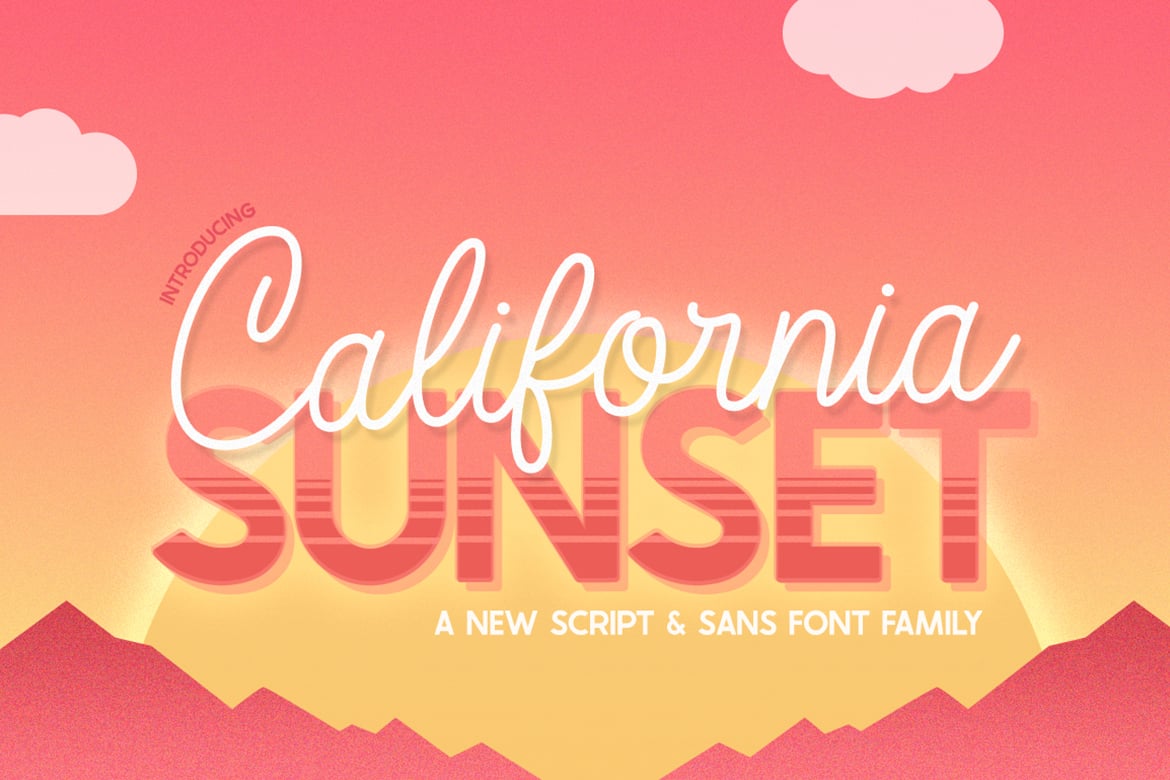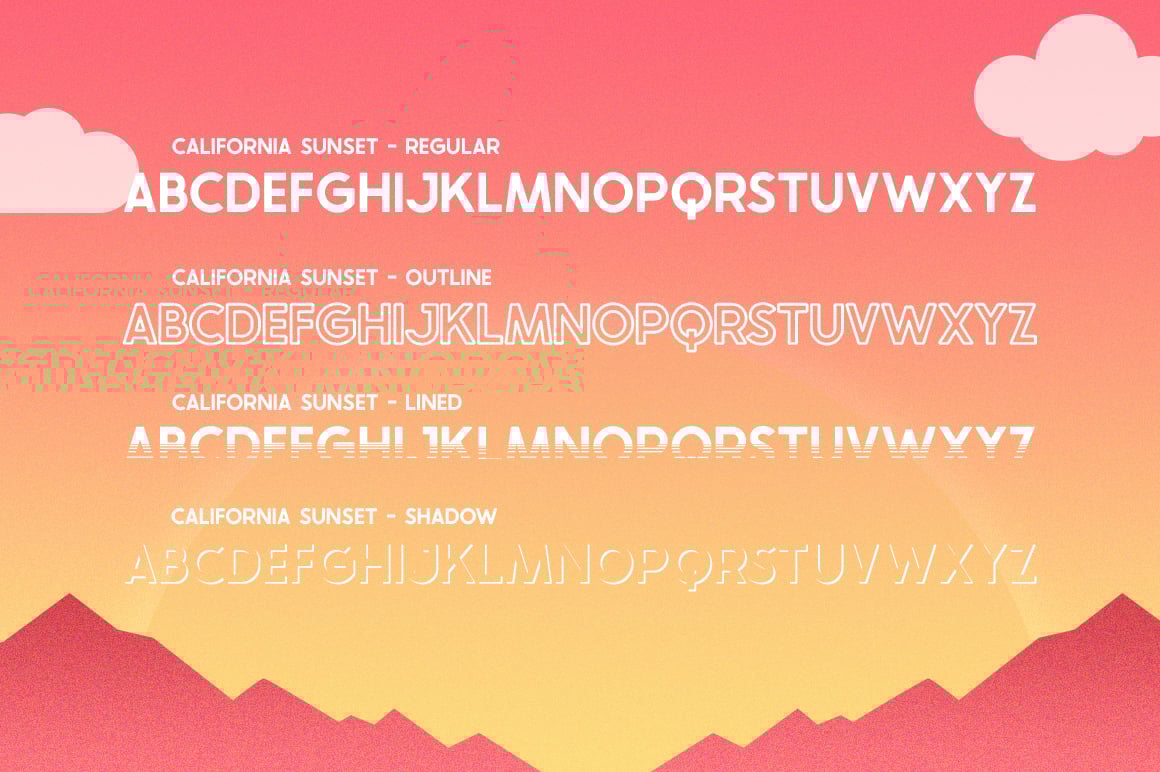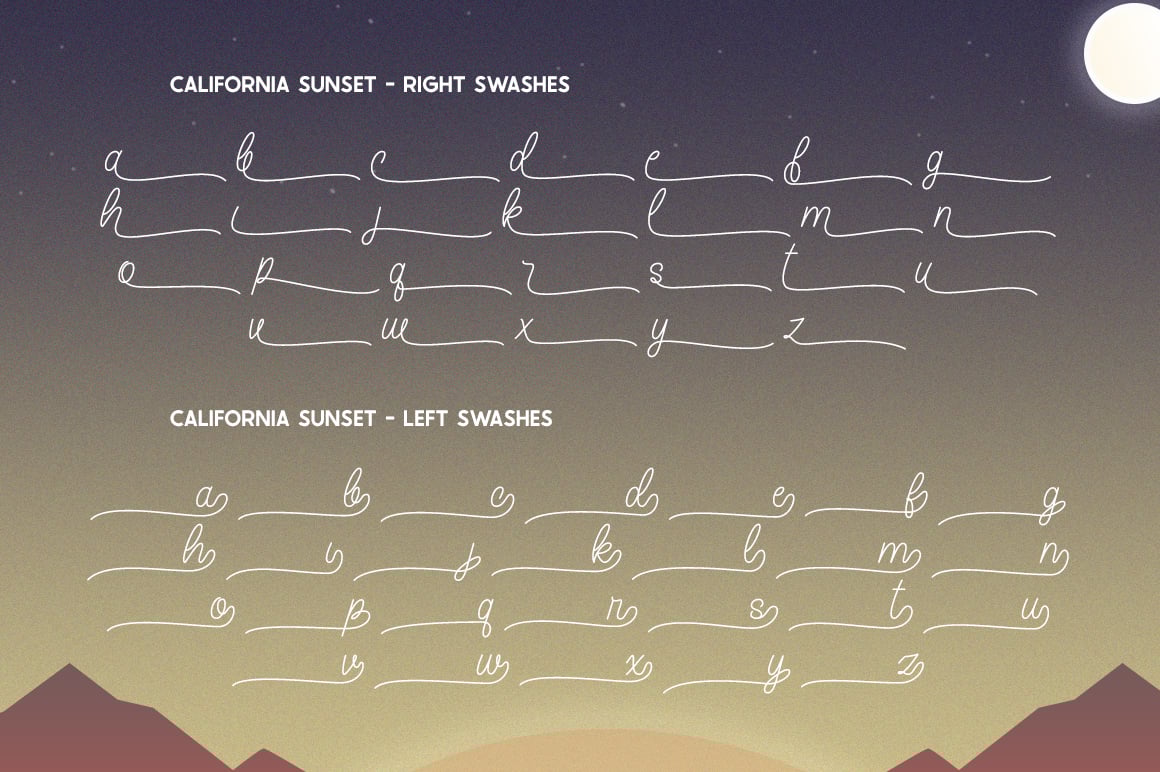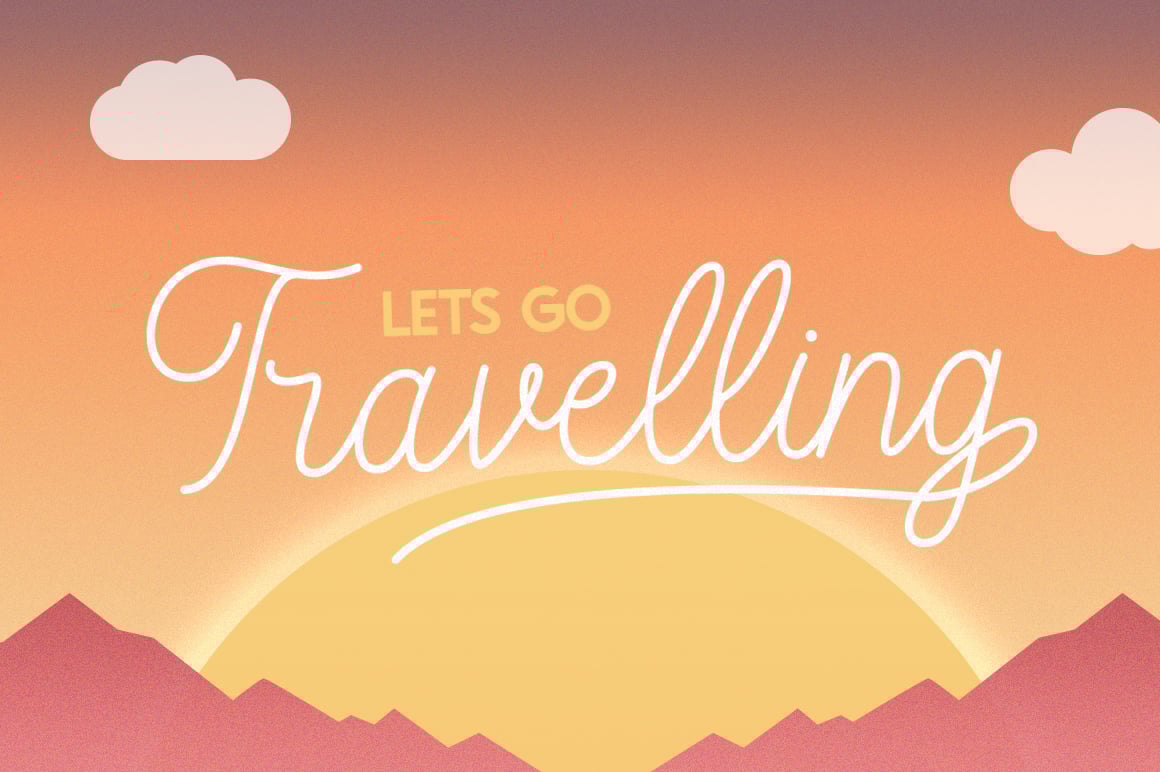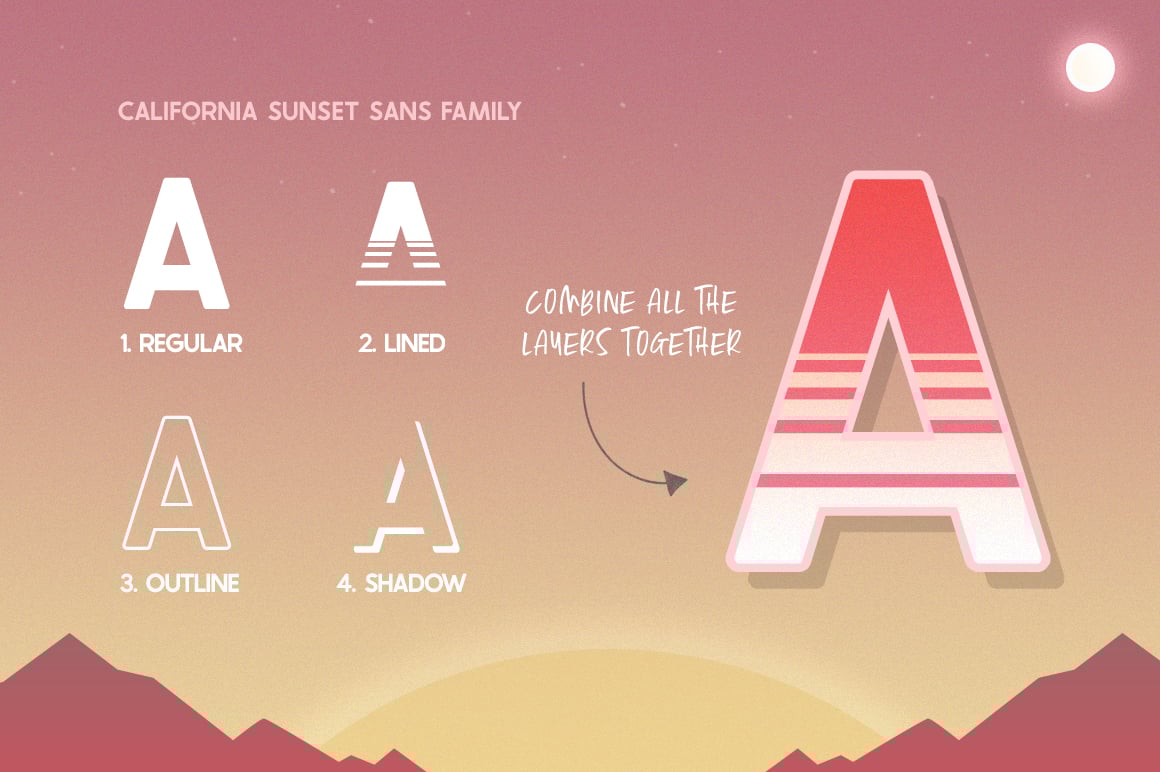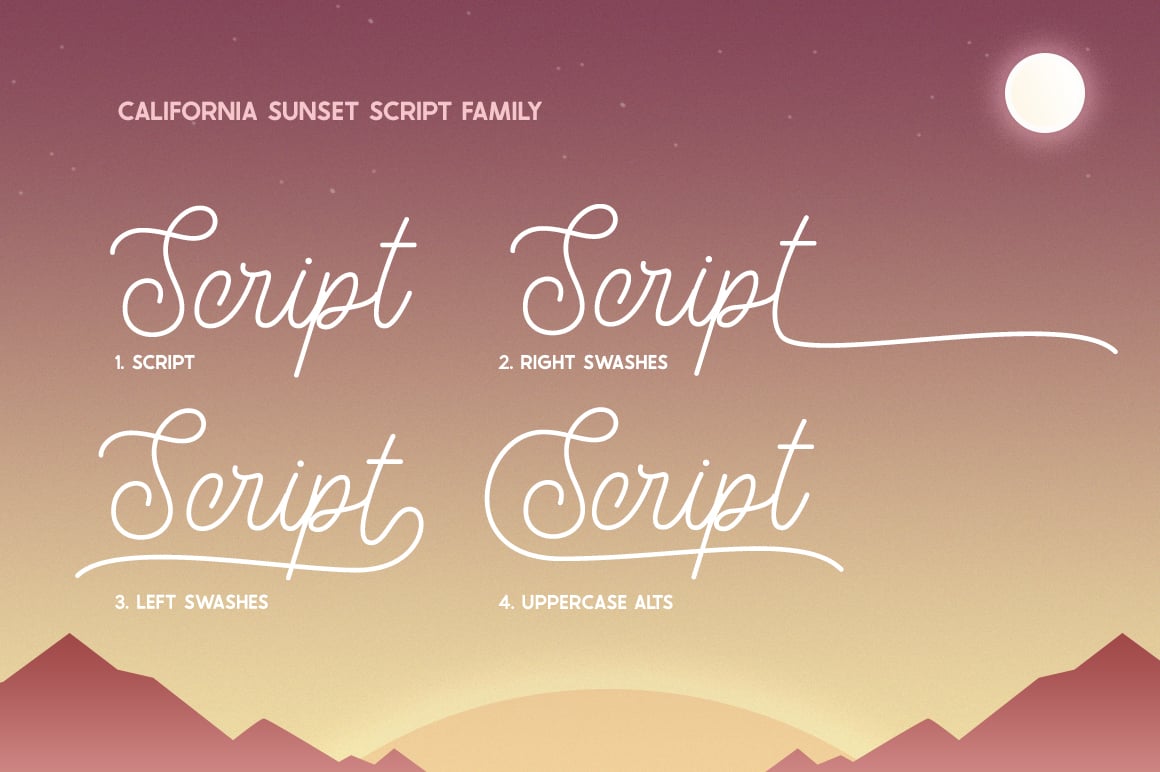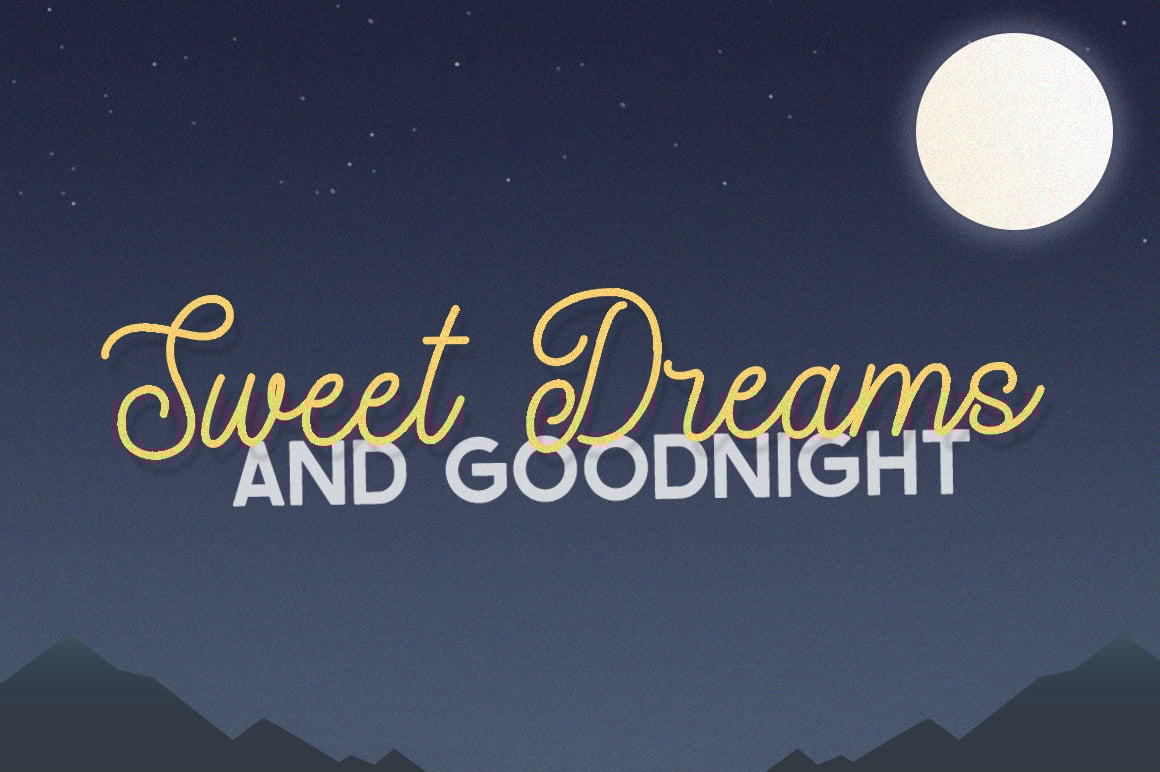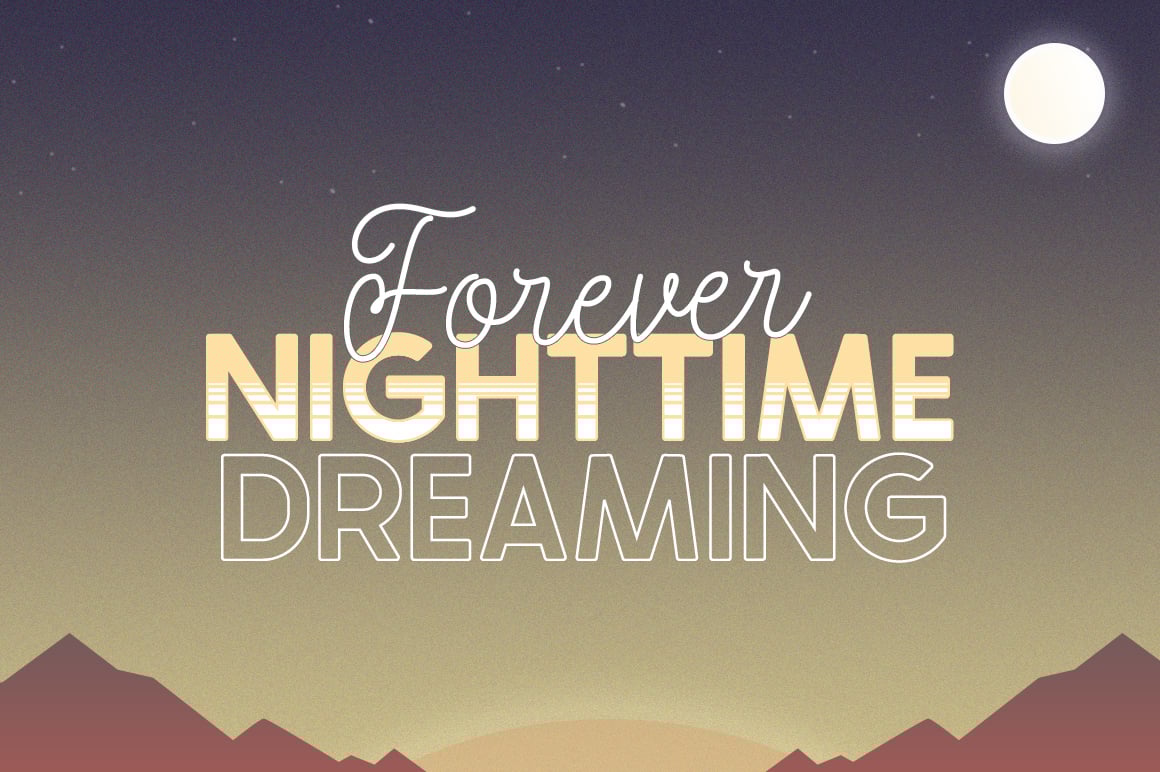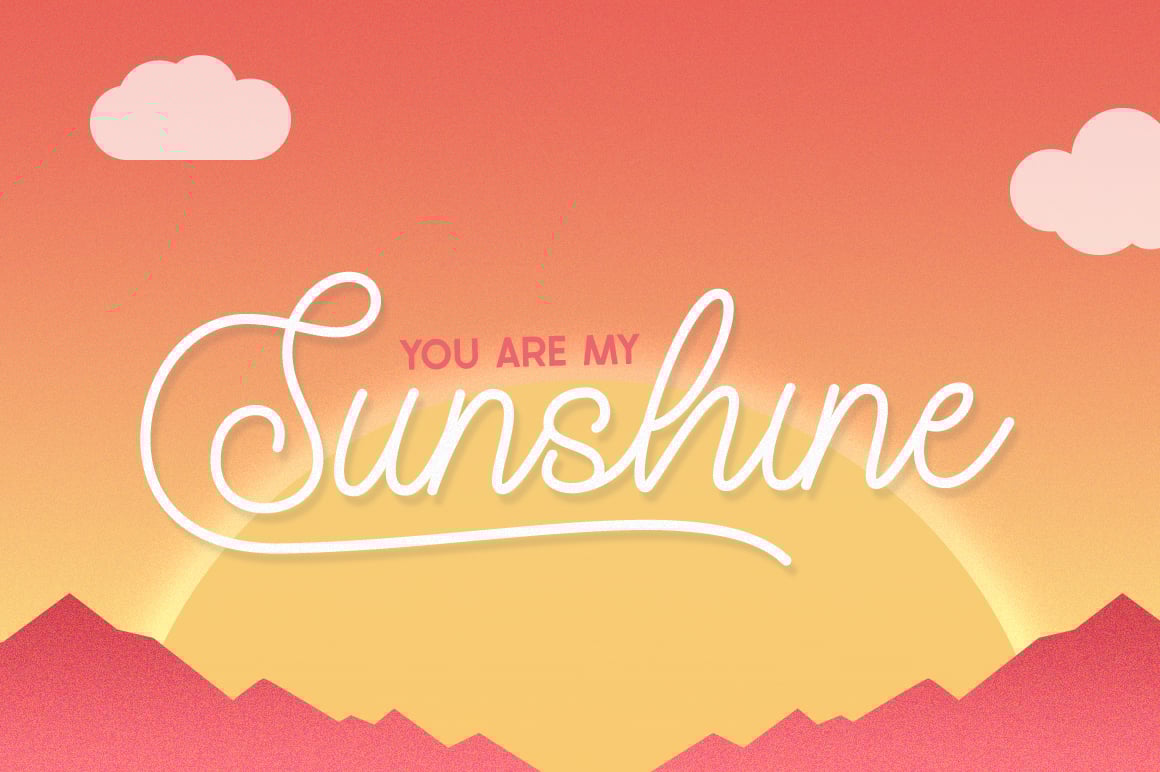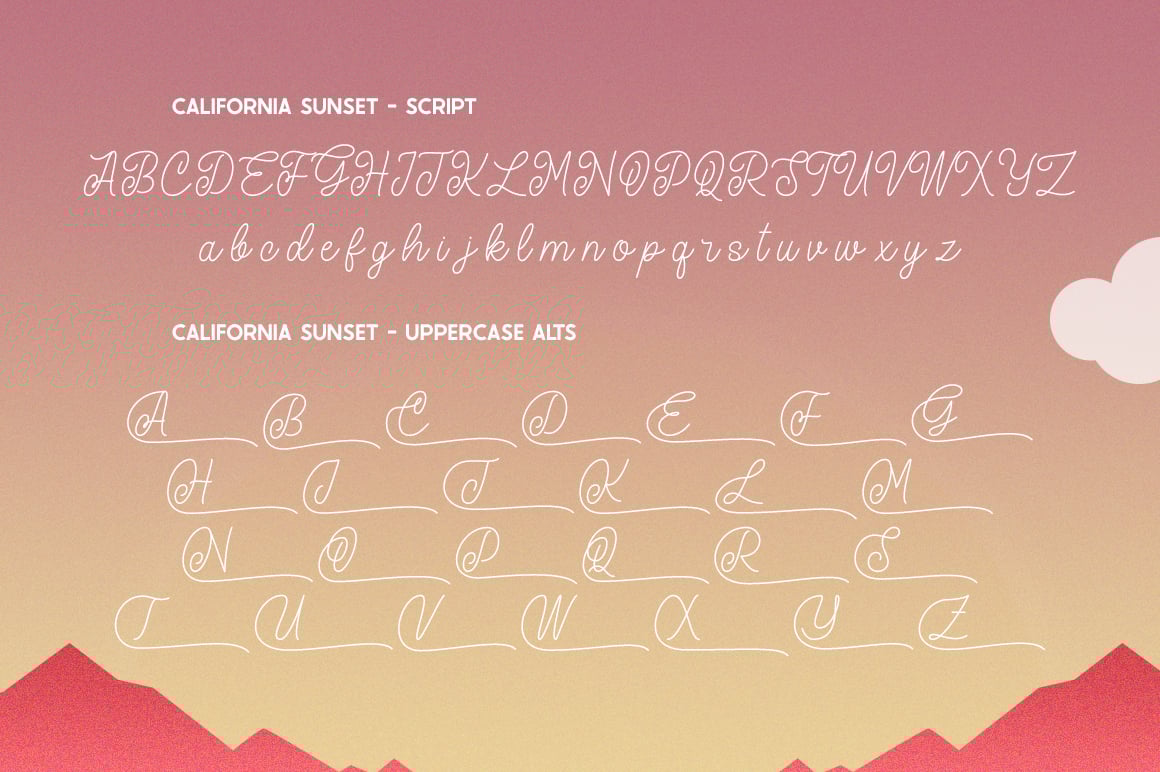
California Sunset Font Family
California Sunset takes you on a magical ride through sans mountains with layered sunset effects and a swirly script that becomes the icing on the top! Enjoy this family that plays so well together. This pack includes a whopping 8 fonts, 4 sans and 4 script.